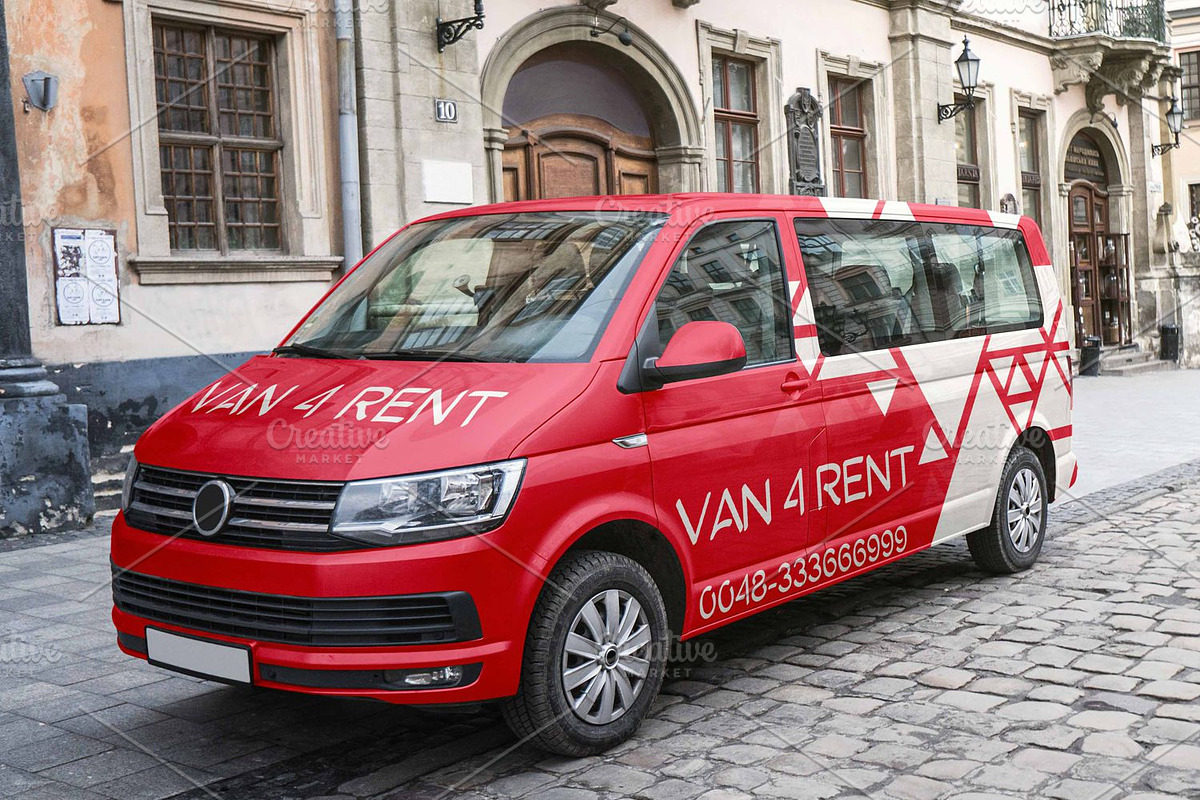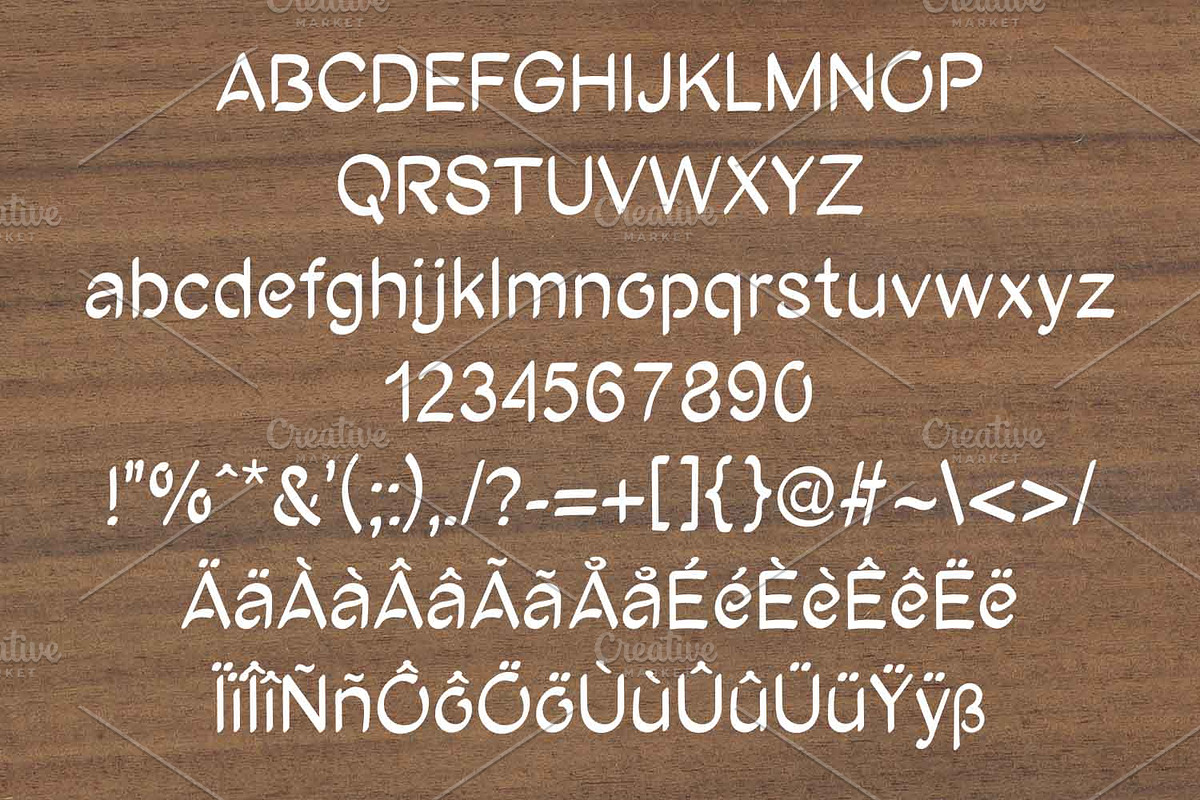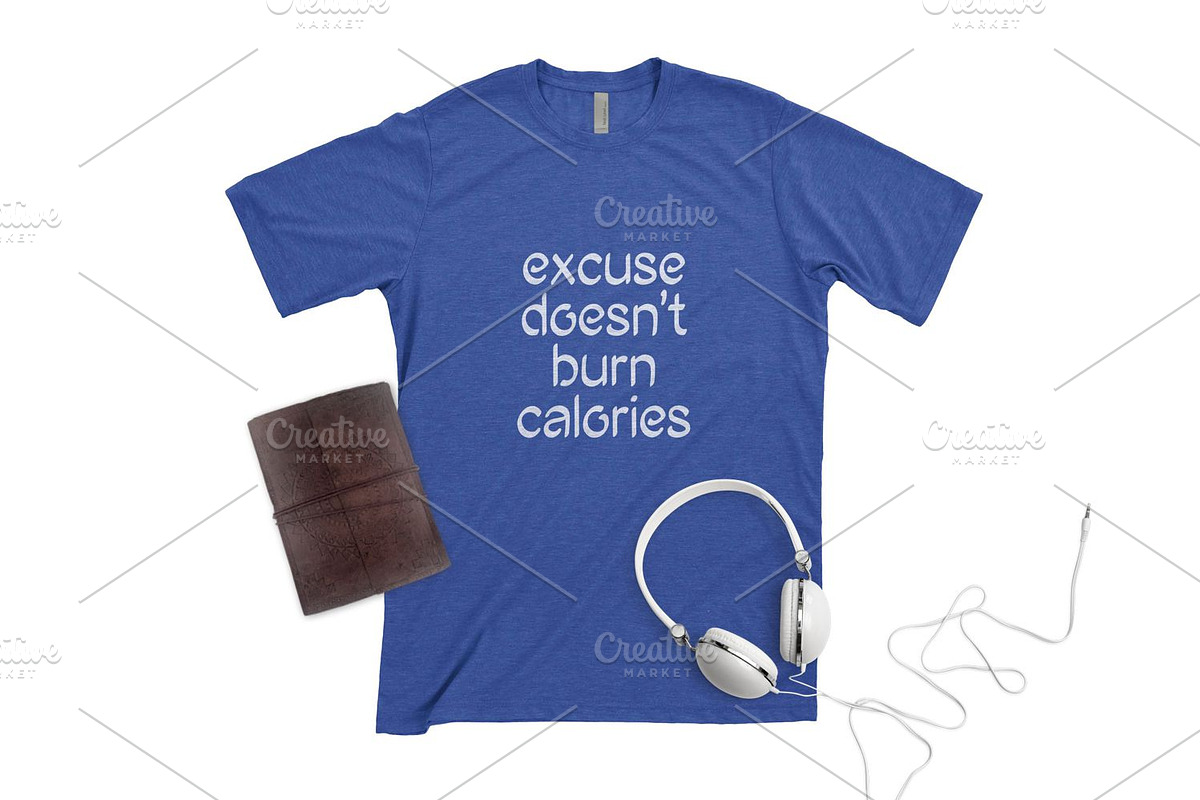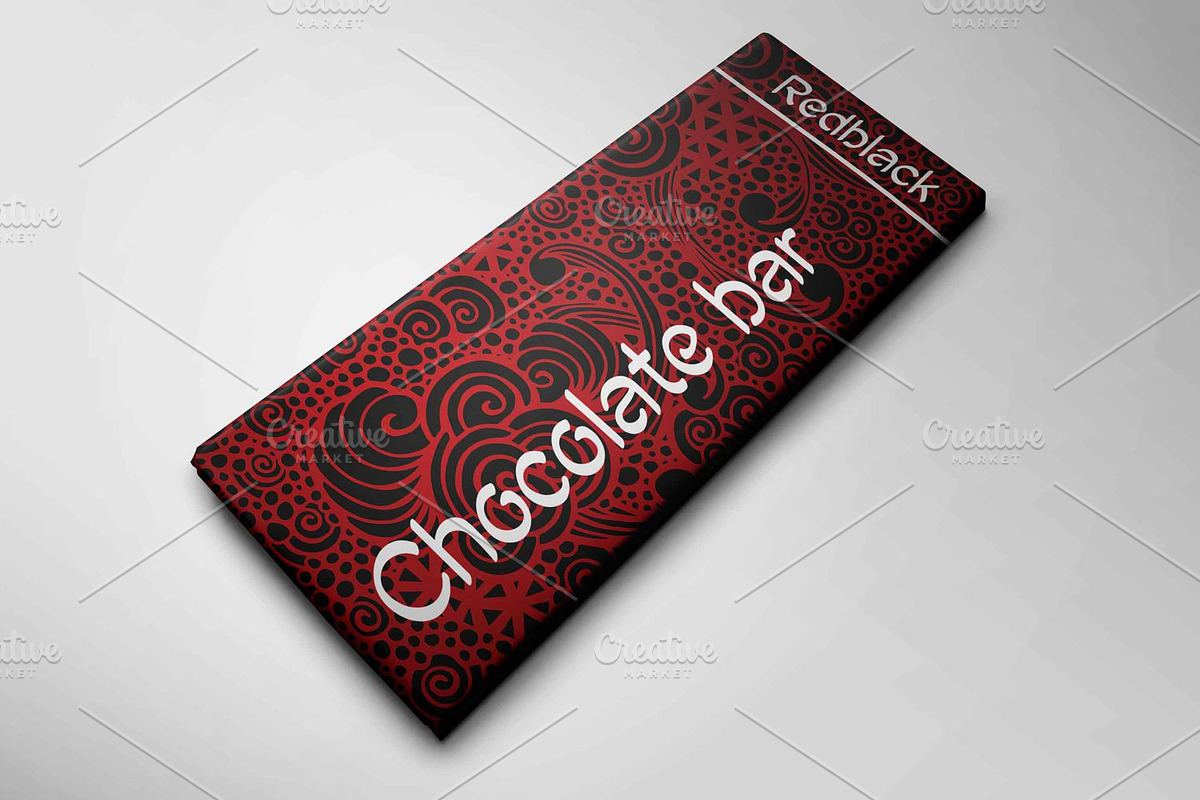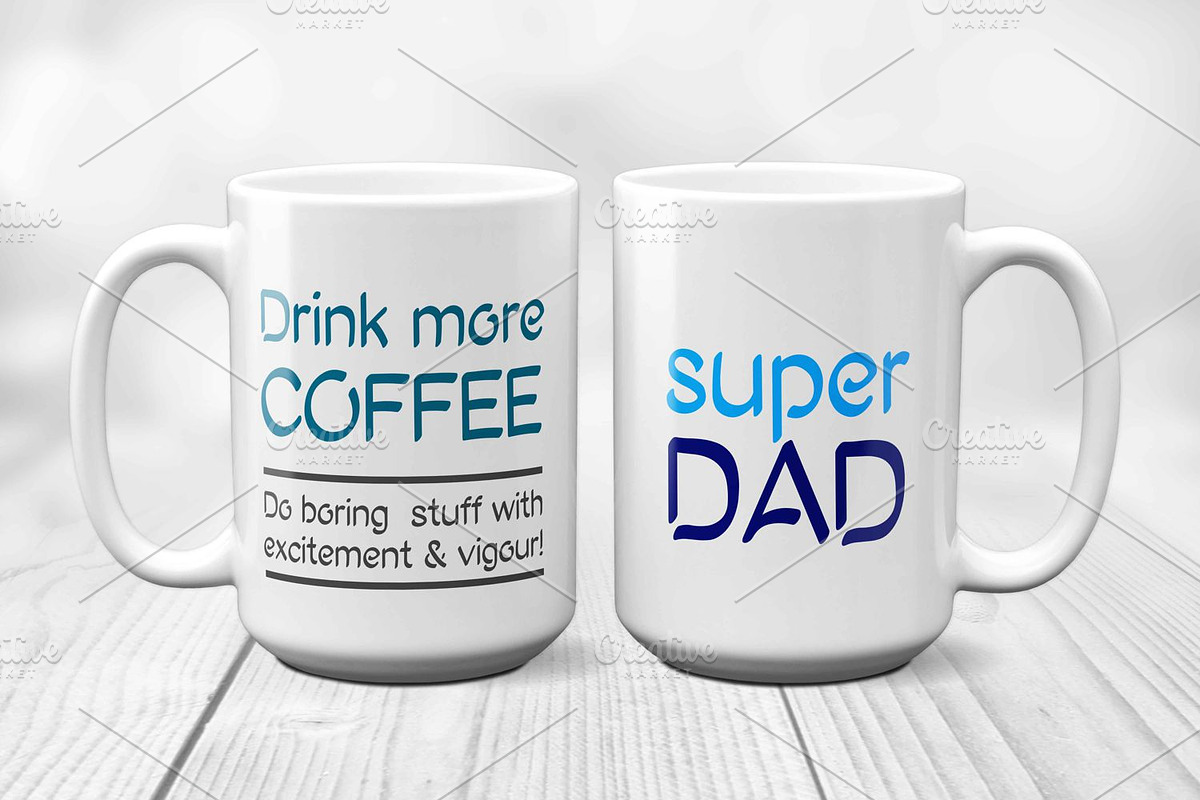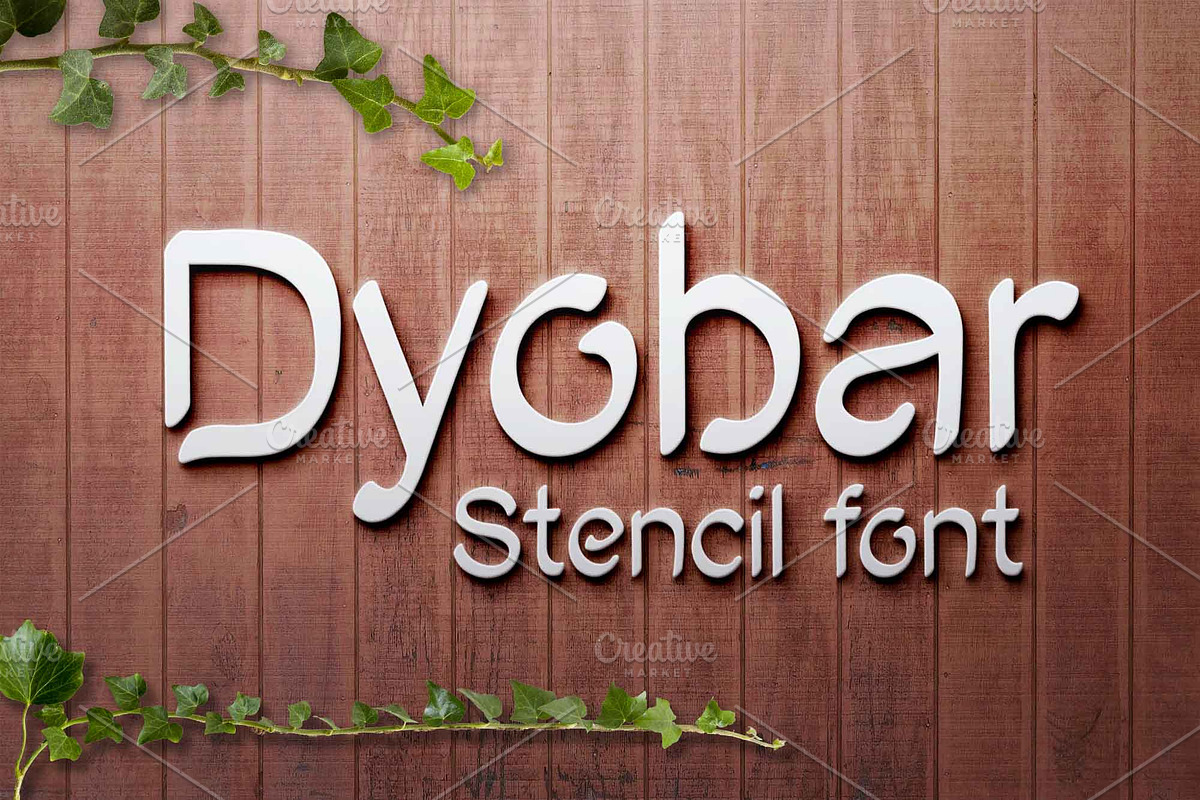
Dyobar
Dyobar is a carefully crafted stencil font without closed loops on the characters.
Dyobar by Digital Typeface Studio fits naturally into Branding, posters, packaging, typography.